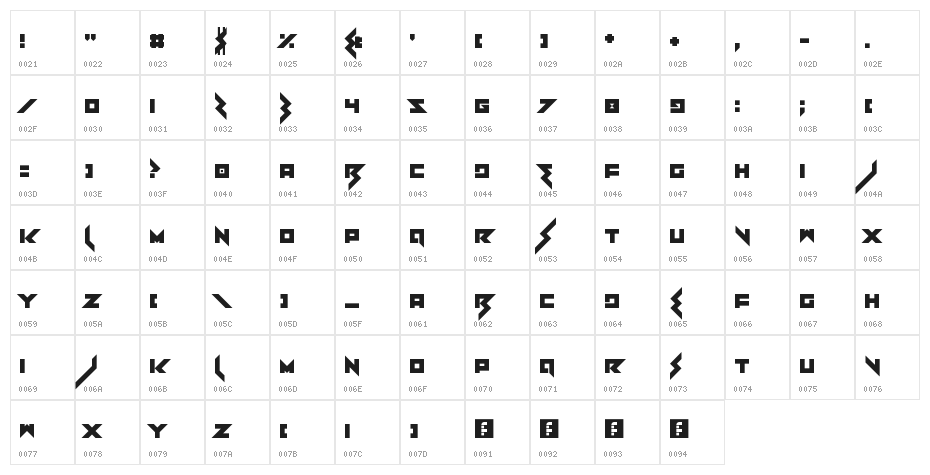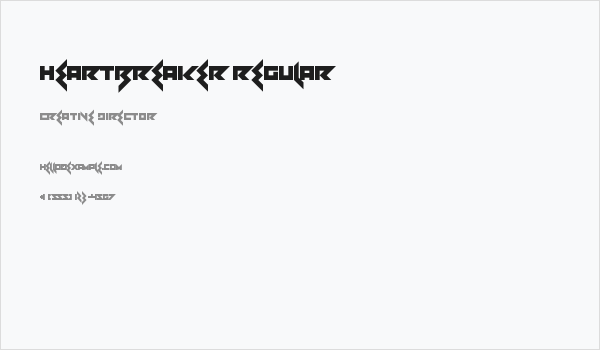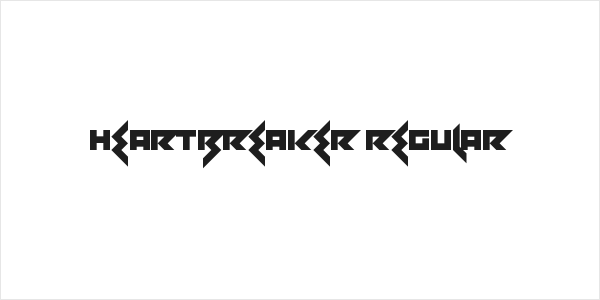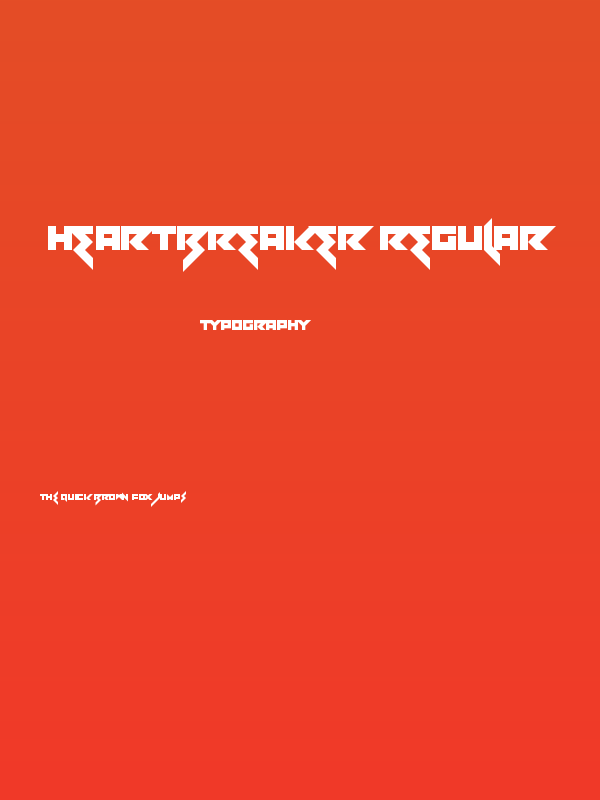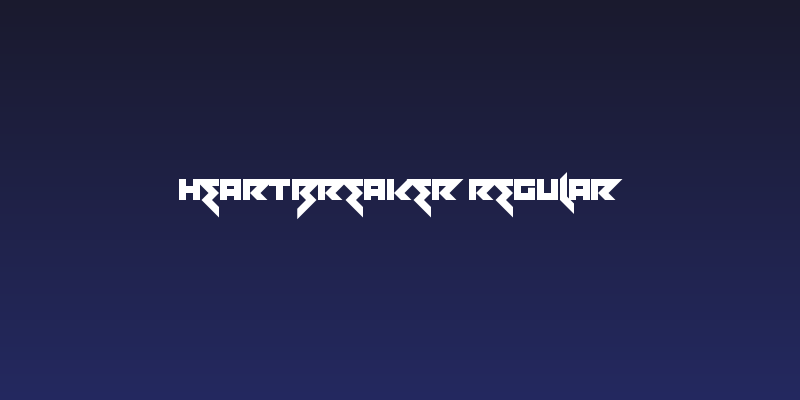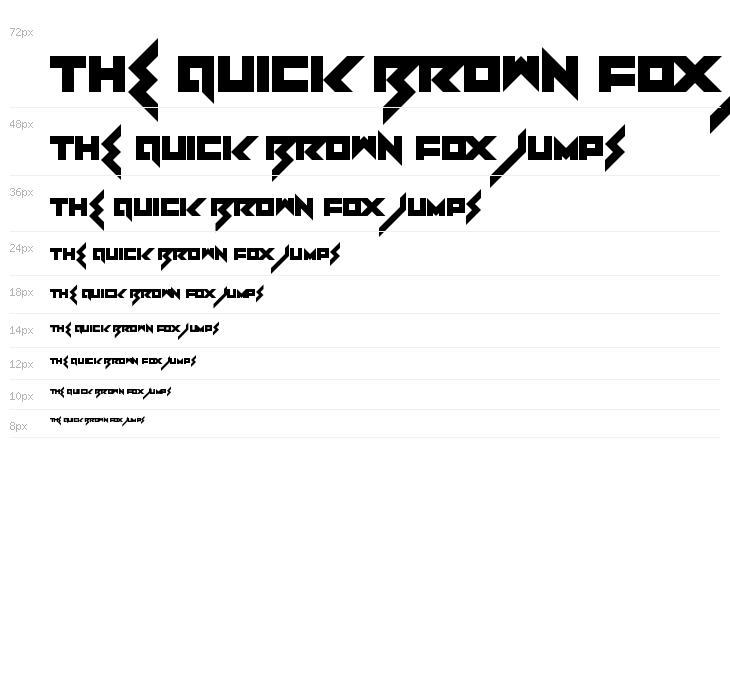
Heartbreaker Regular Font
Heartbreaker Regular Description
This font features a bold, geometric design with sharp angles and a futuristic aesthetic. Each character is crafted with a unique, edgy style that combines thick strokes and angular cuts, creating a striking visual impact. The uppercase and lowercase letters maintain a consistent design, emphasizing the font's cohesive and modern look. Numbers and special characters are equally bold and angular, ensuring uniformity across all glyphs. This font's distinct style makes it ideal for projects that require a strong, attention-grabbing typeface.
| Overall Style | Futuristic, Edgy |
| Proposed Projects | Ideal for music album covers, video game titles, posters, and branding that requires a modern, edgy look. |